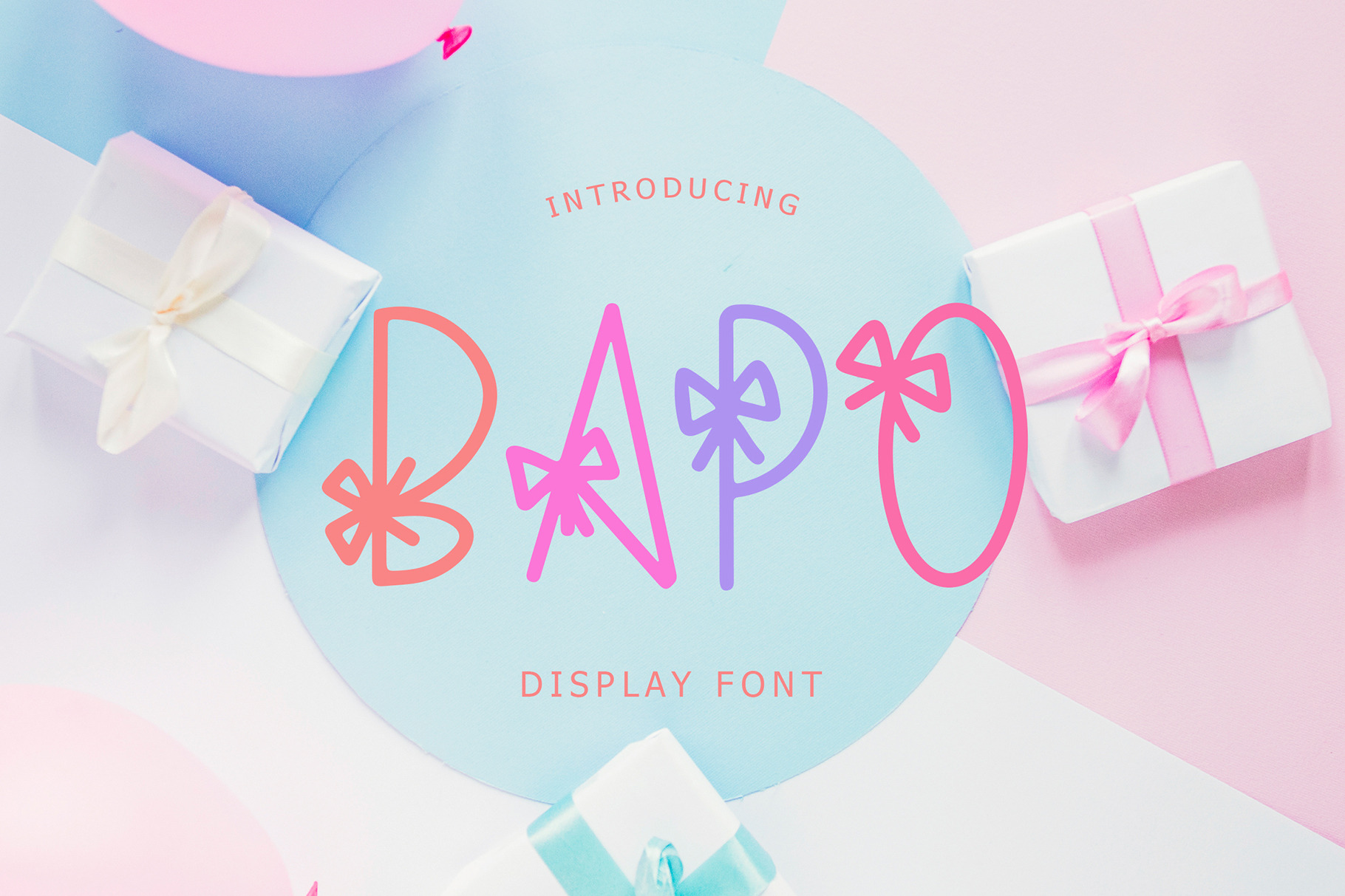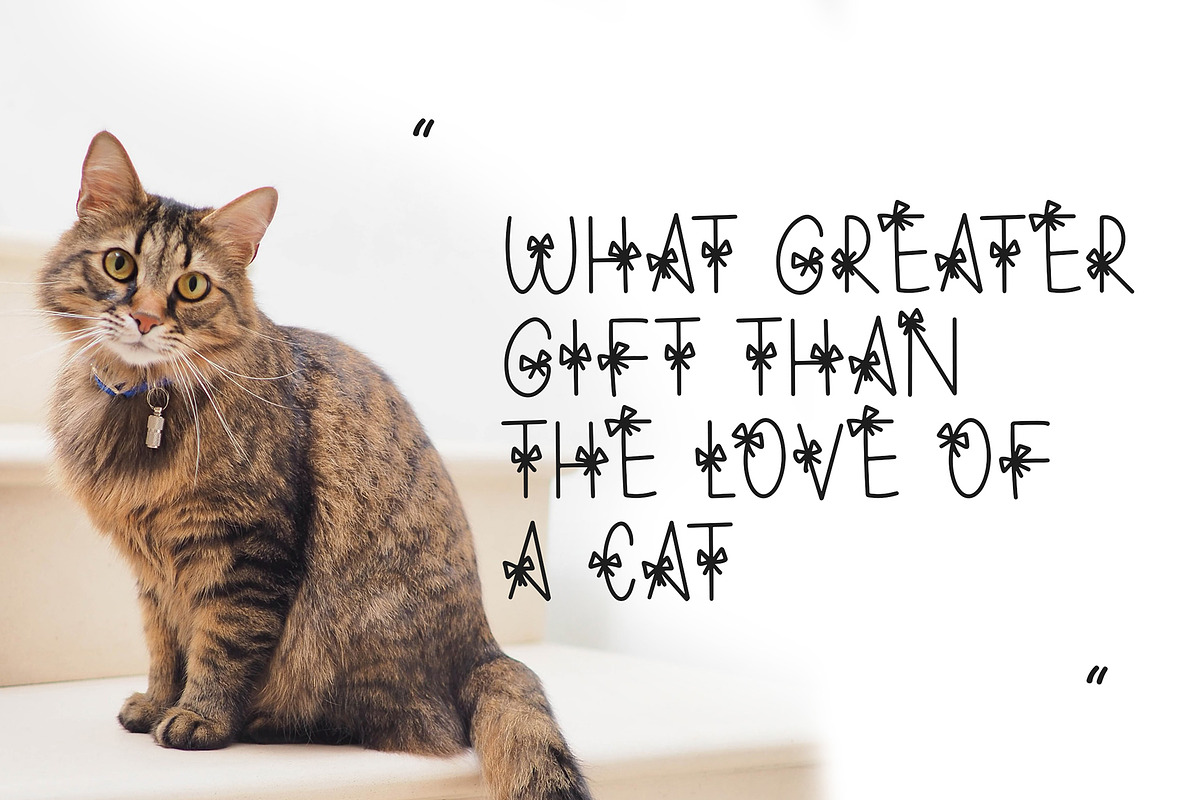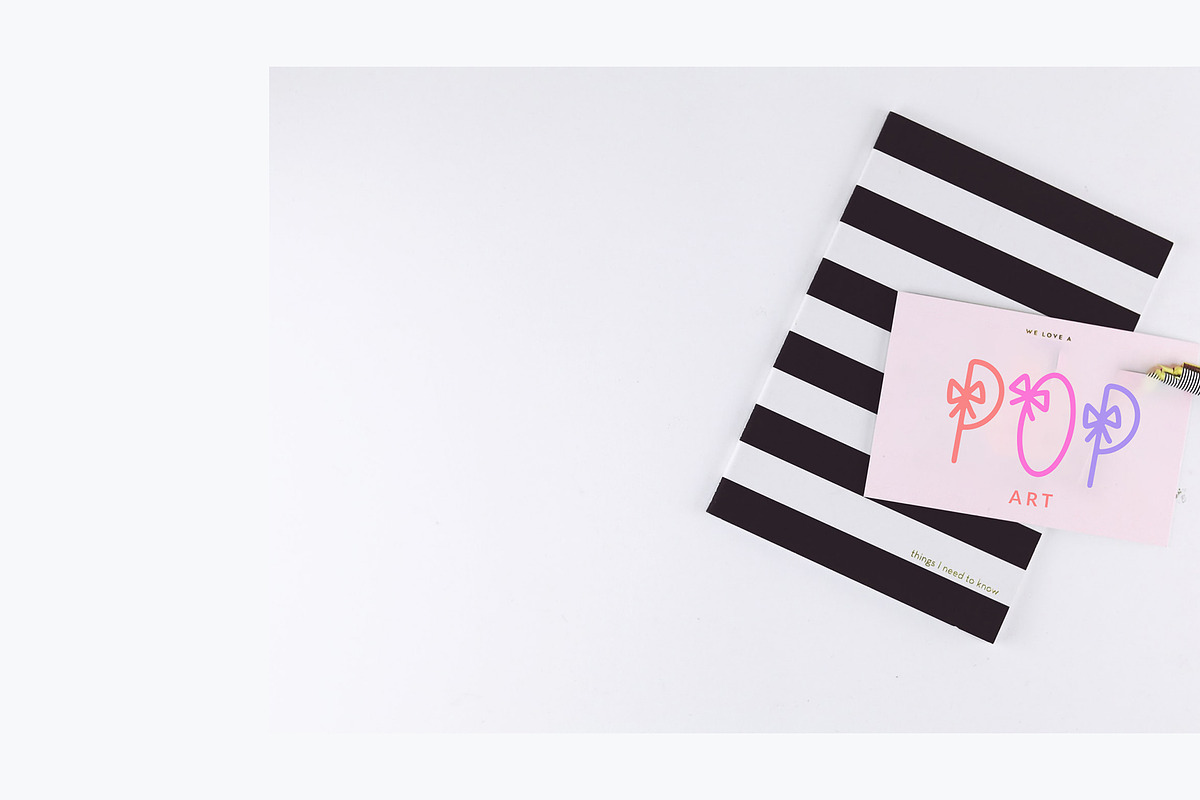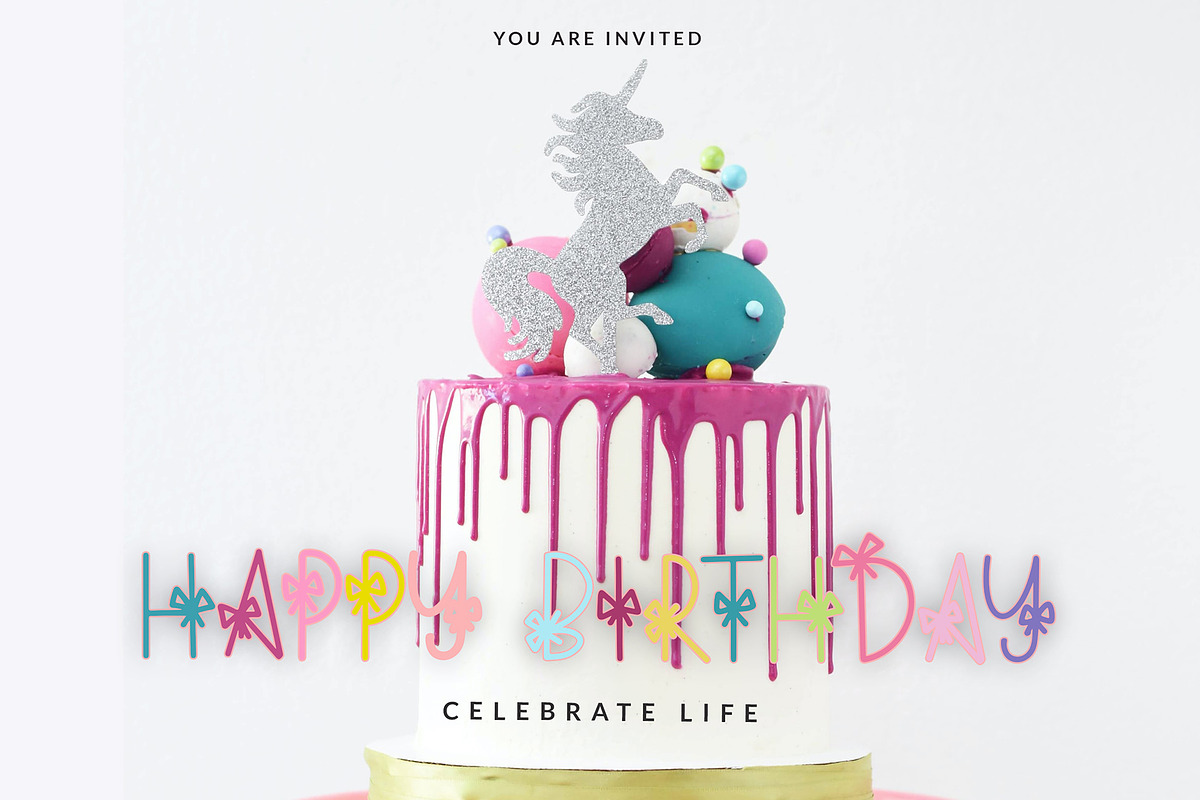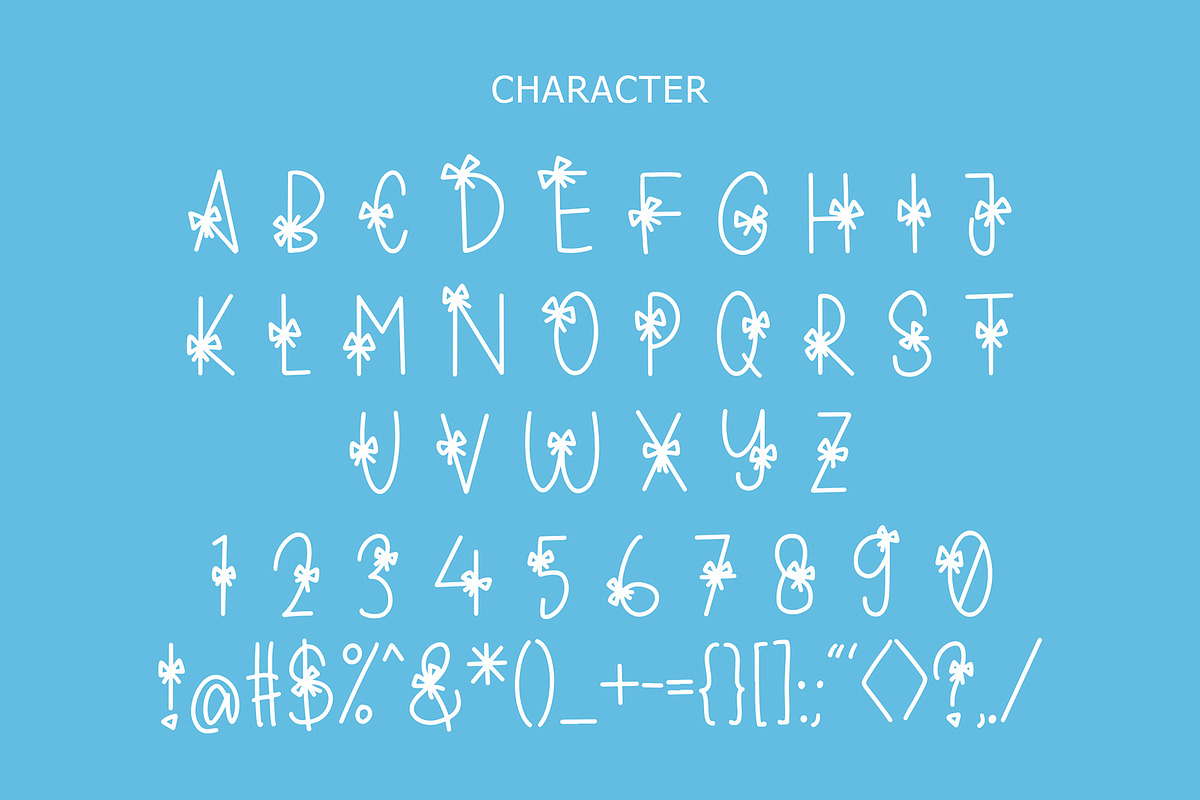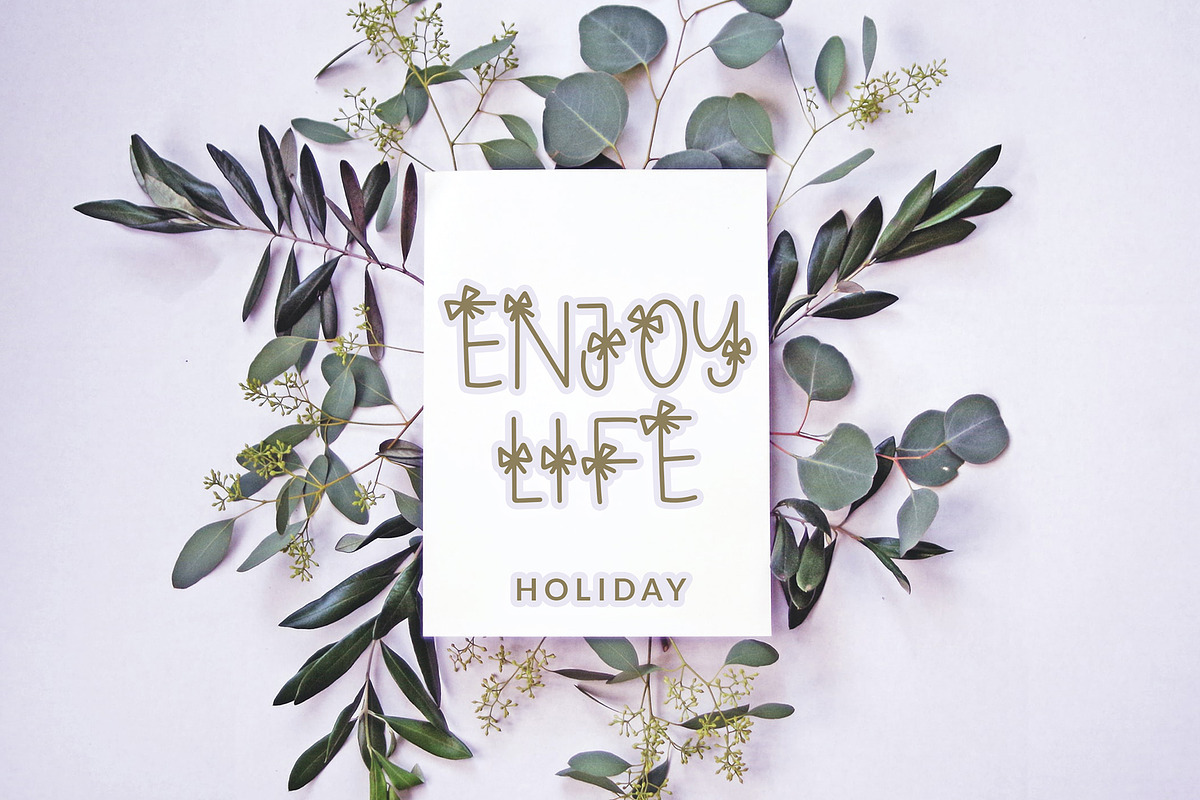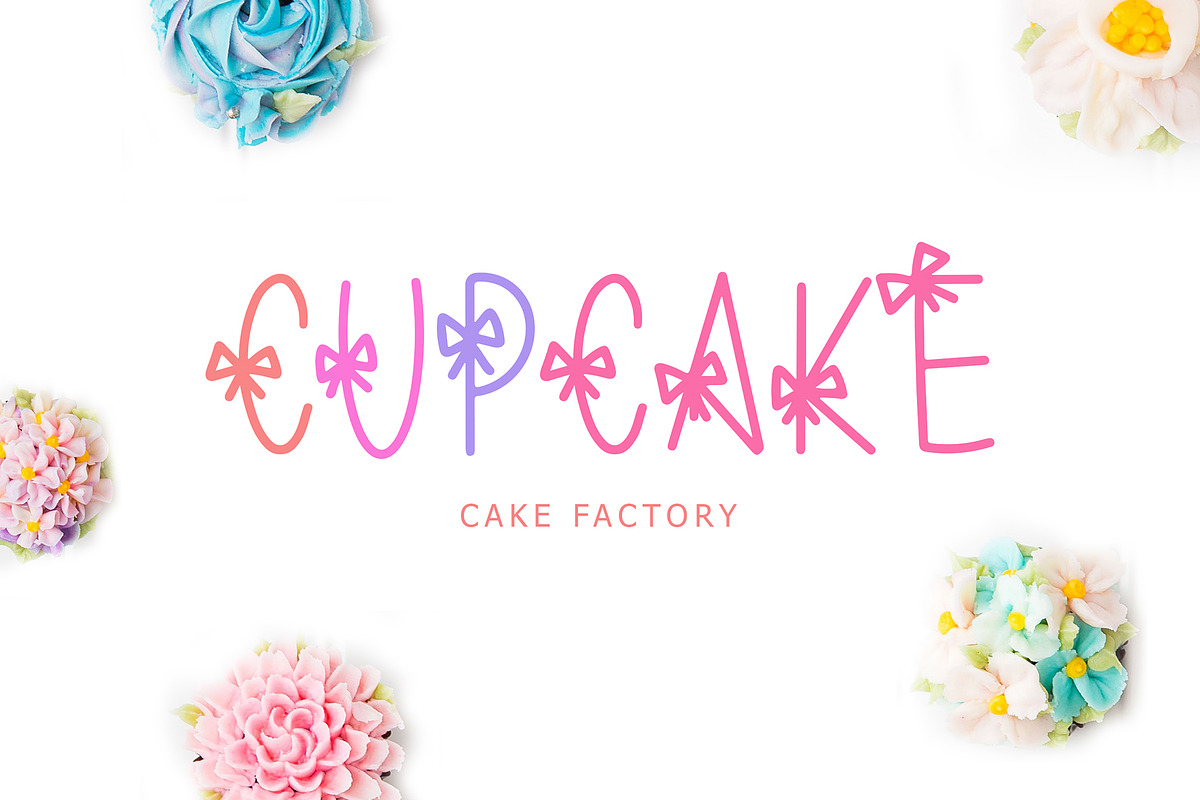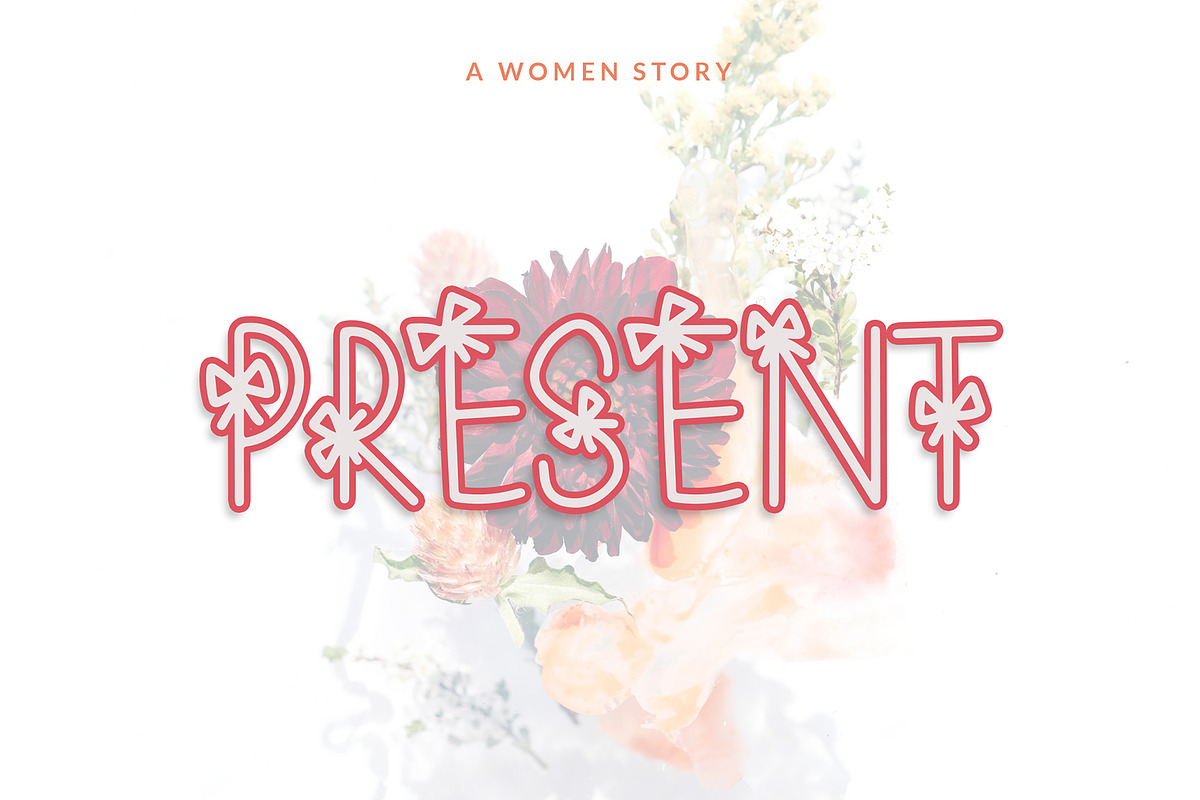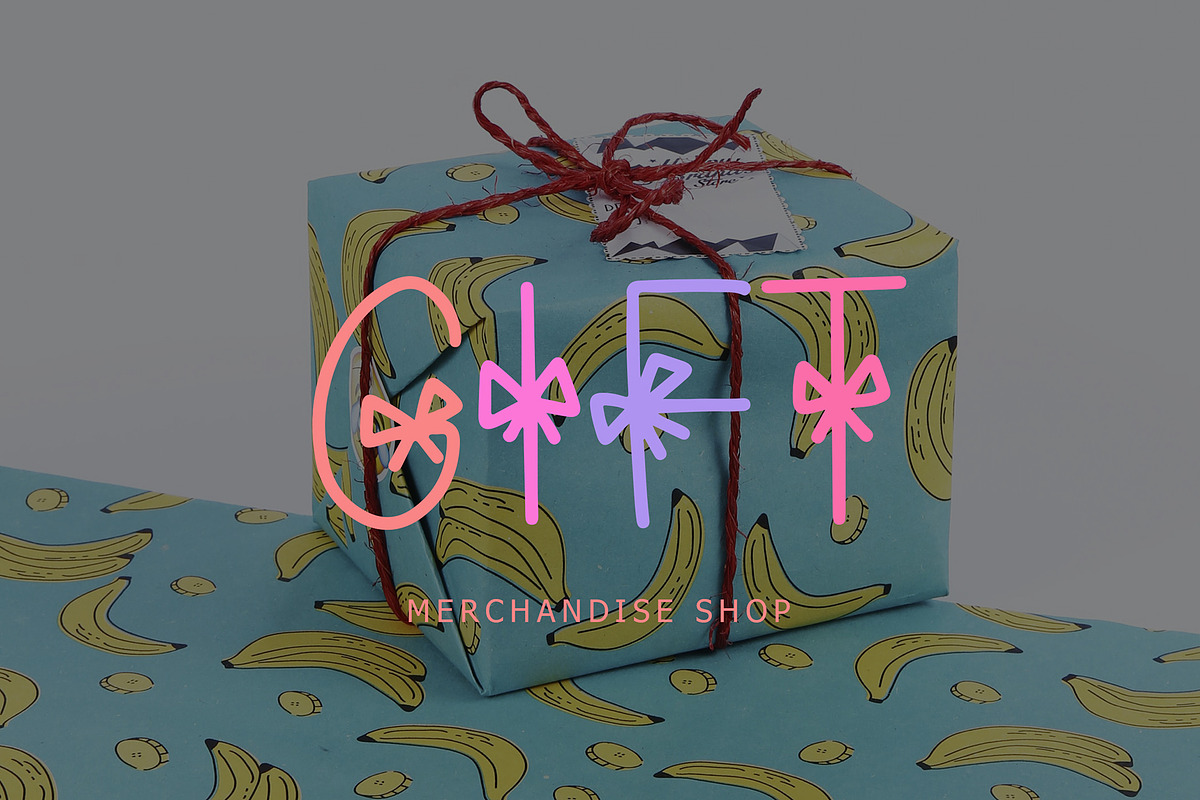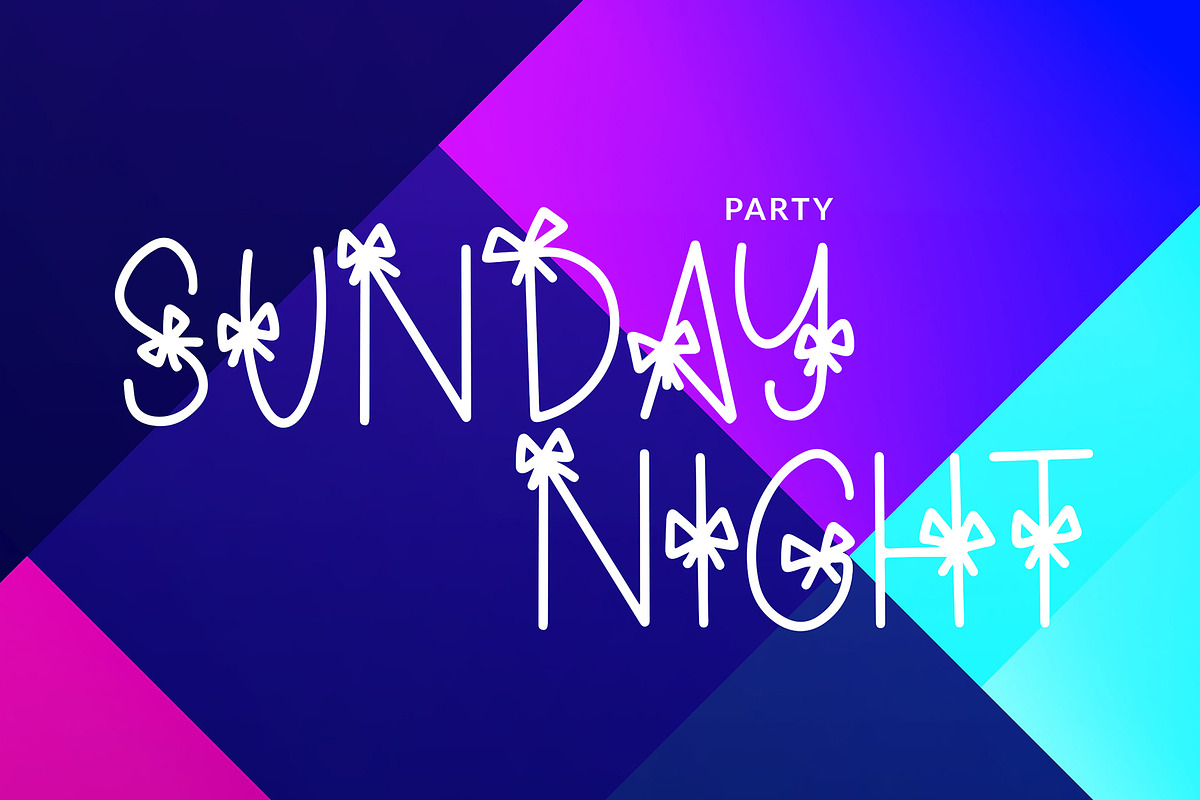
Bapo Party Display Font
Bapo Party Display Font is a unique and decoration display font that will make any kid-themed design stand out!
Bapo Party Display Font is perfect for branding projects, logo, T-shirt designs, book cover design, social media posts, advertisements, product packaging, product designs, label, watermark, invitation, stationery, and any projects.